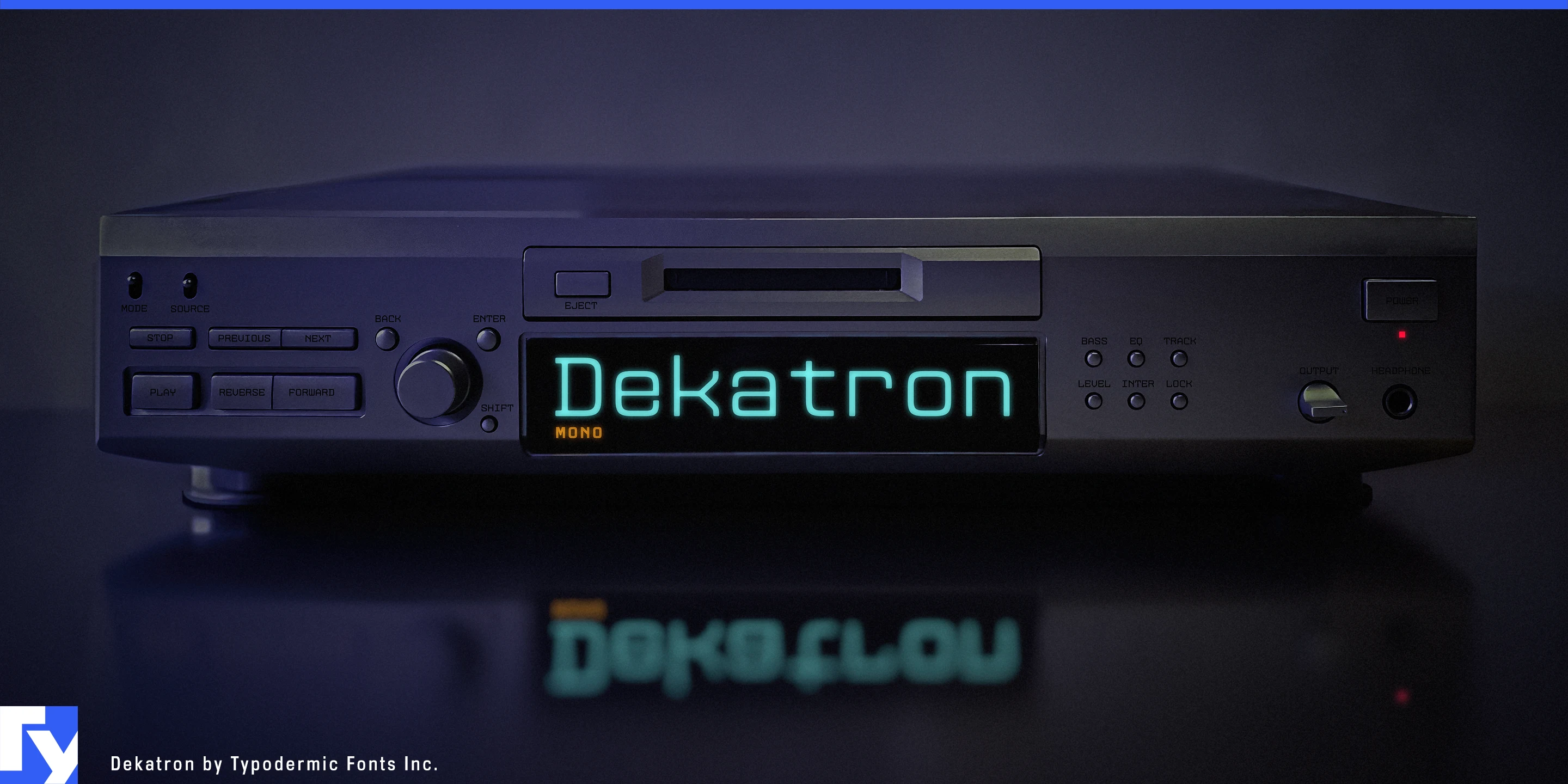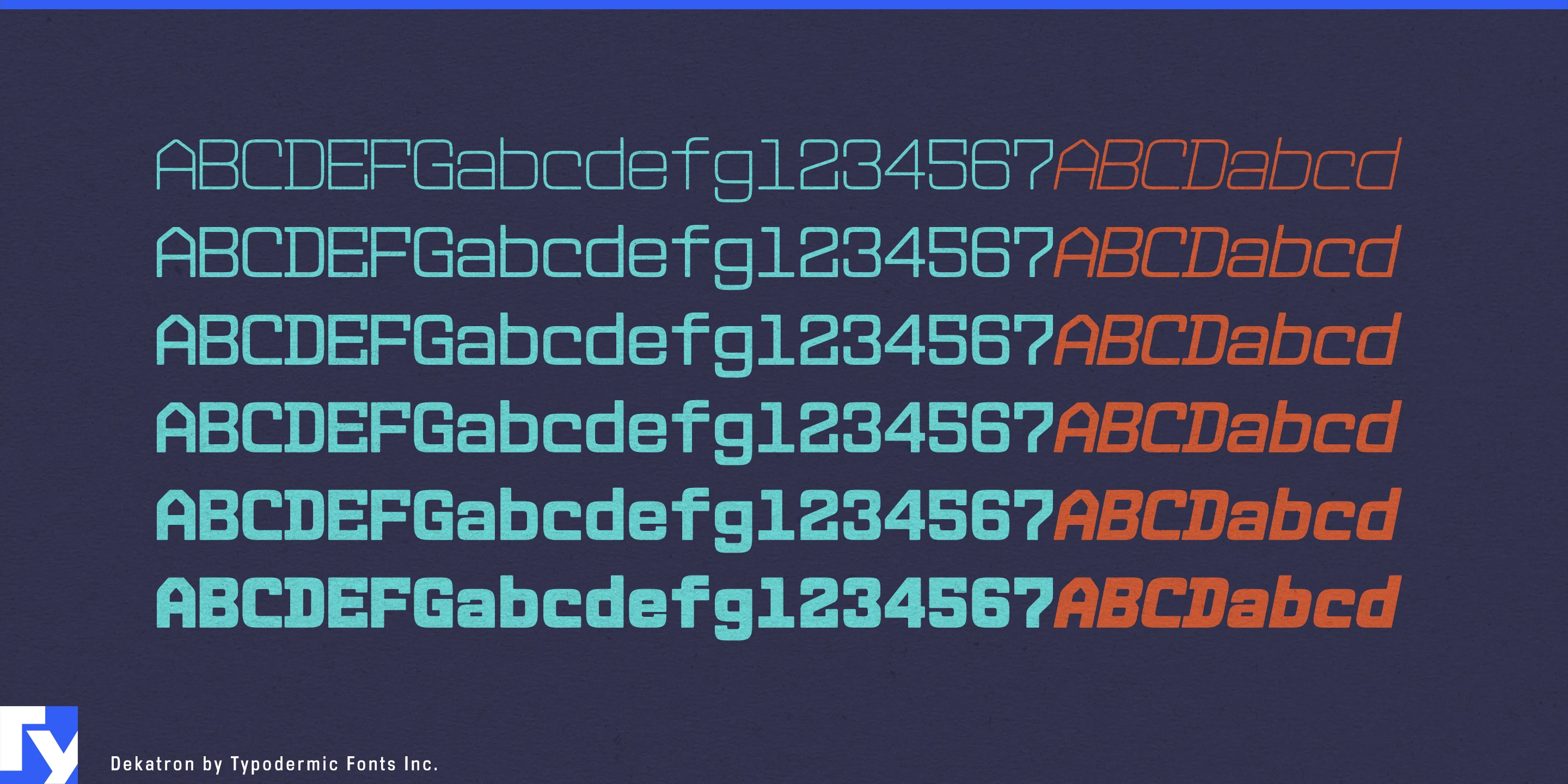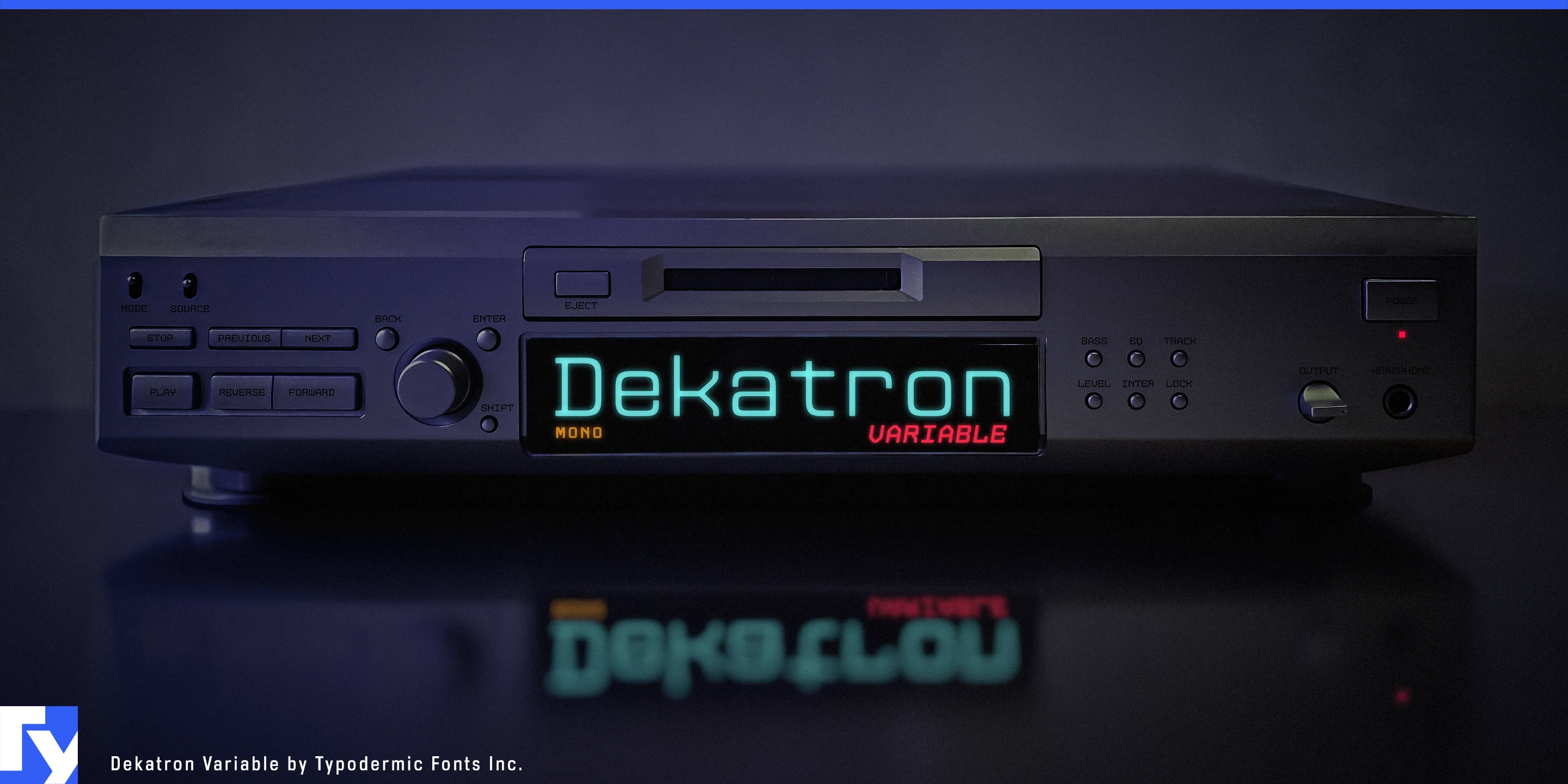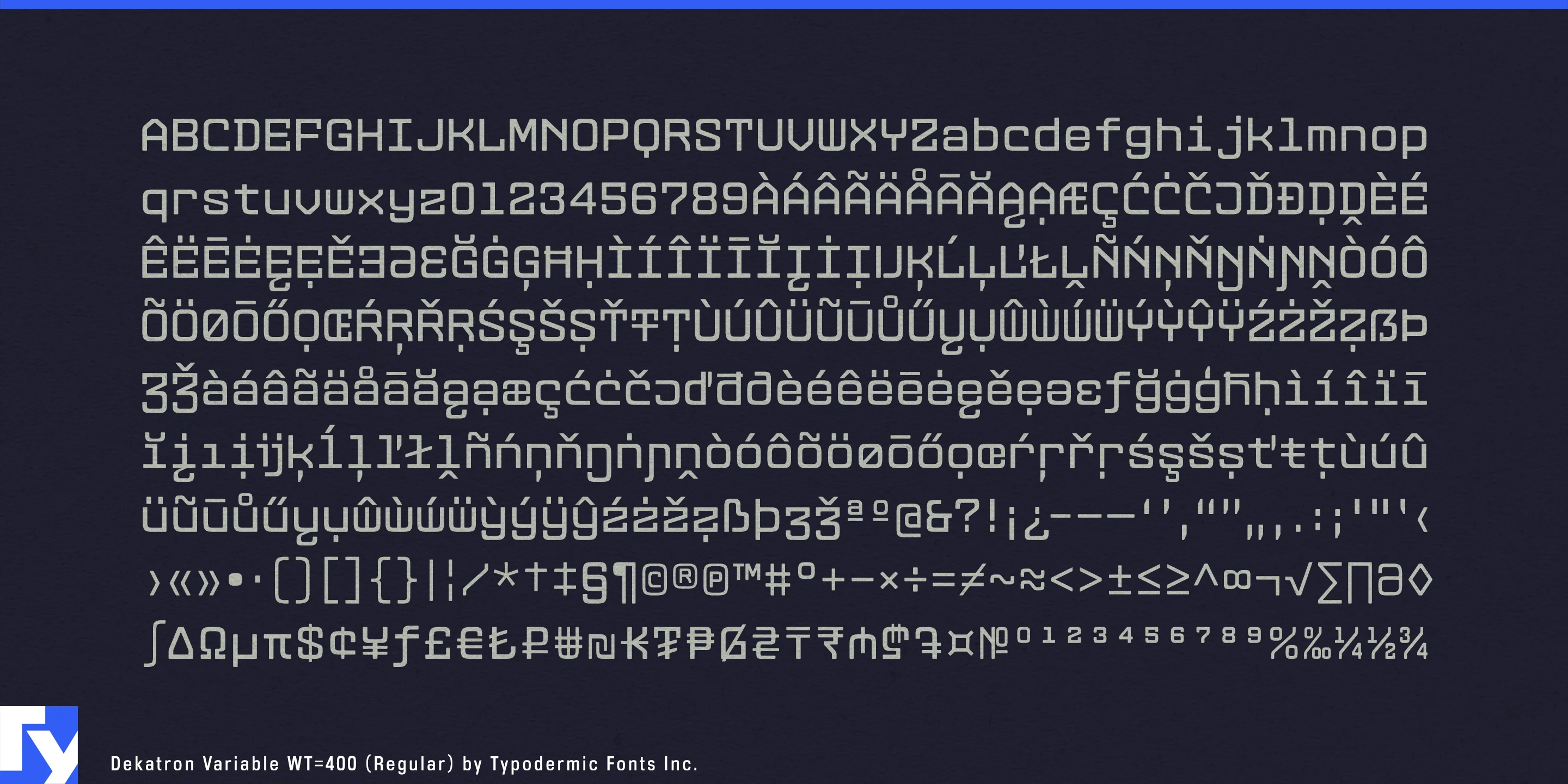
Dekatron
Information displays have an awkward problem: the content keeps changing, but the layout should not. Numbers grow and shrink, machine IDs swap places, status words update, and a dashboard can start to jitter visually if every replacement occupies a different amount of space. Dekatron solves that with a fixed-width structure designed for display rather than programming.
Its monospaced rhythm gives changing information a stable footprint, while rounded superelliptical forms keep the grid from feeling like terminal output. Six weights with matching italics provide enough range to distinguish headings, status labels, values and identifiers without abandoning the underlying alignment.
Factory production wallboards are a natural fit. Machine names, output counts, targets, downtime and status indicators can update continuously while PRESS 04, TARGET 680, ACTUAL 642 and IDLE continue to occupy predictable spaces. Robot fleets and automated warehouses extend the same logic to AMR identifiers, dock numbers, battery levels, task states and queue information.
Control rooms, data centres, charging networks and equipment-monitoring systems provide another strong territory. Dekatron works well for large status tiles, equipment names, incident summaries and operations-centre headings, where fixed-width spacing becomes a practical part of the composition rather than a reference to coding.
Live sports data offers a more public-facing application. Timing overlays, score graphics, standings and player statistics continually replace numbers inside fixed regions; Dekatron keeps those transitions orderly while different weights establish hierarchy between labels, names and values.
The separate variable version adds another useful behavior: weight can change while character widths remain fixed, allowing animated dashboards and data-driven graphics to gain emphasis without forcing the surrounding composition to reflow.
Dekatron is a monospace for information that refuses to sit still. Production counts, robot states, equipment IDs, timing data and operational status can change constantly while the underlying structure stays calm.